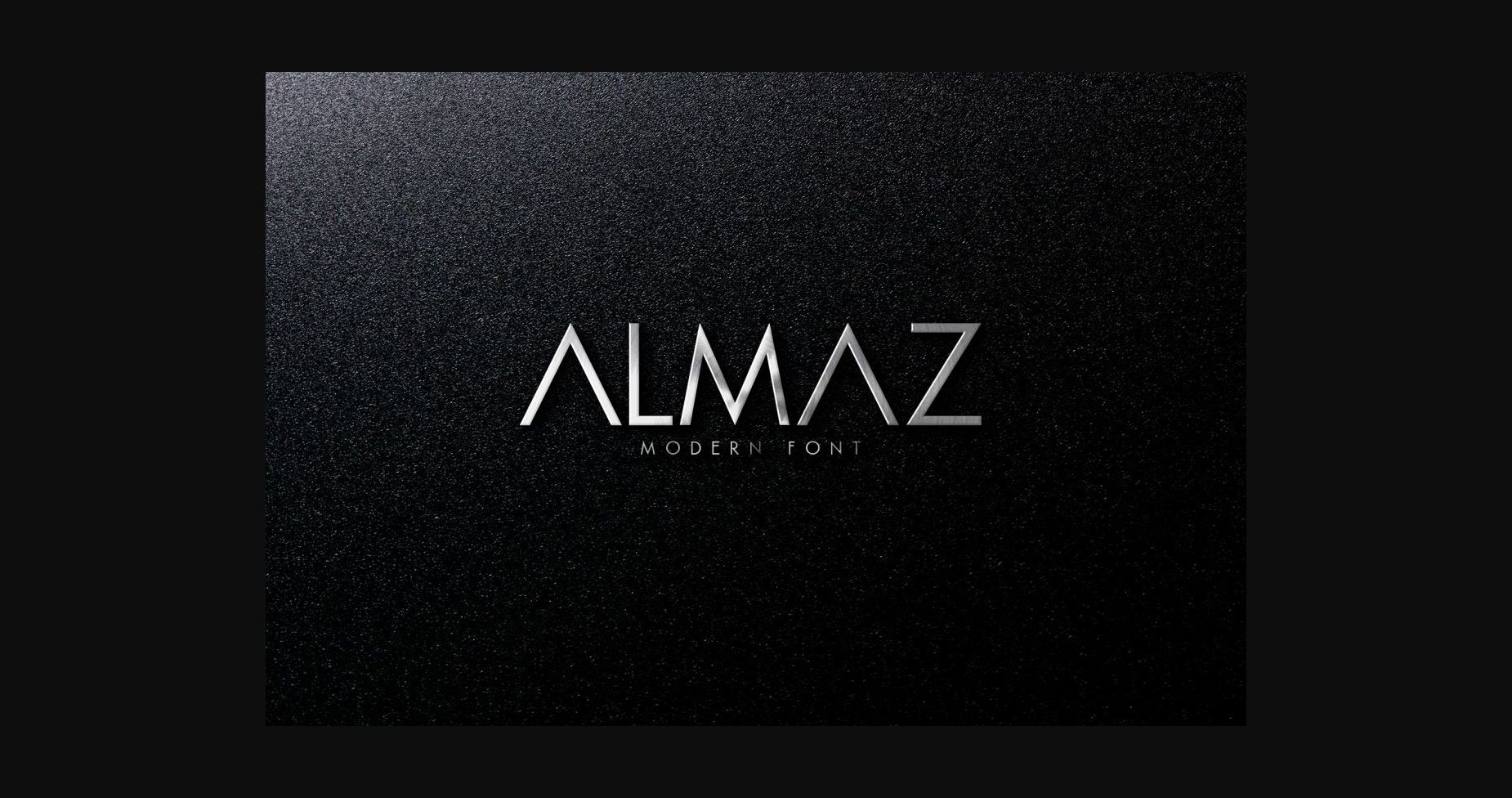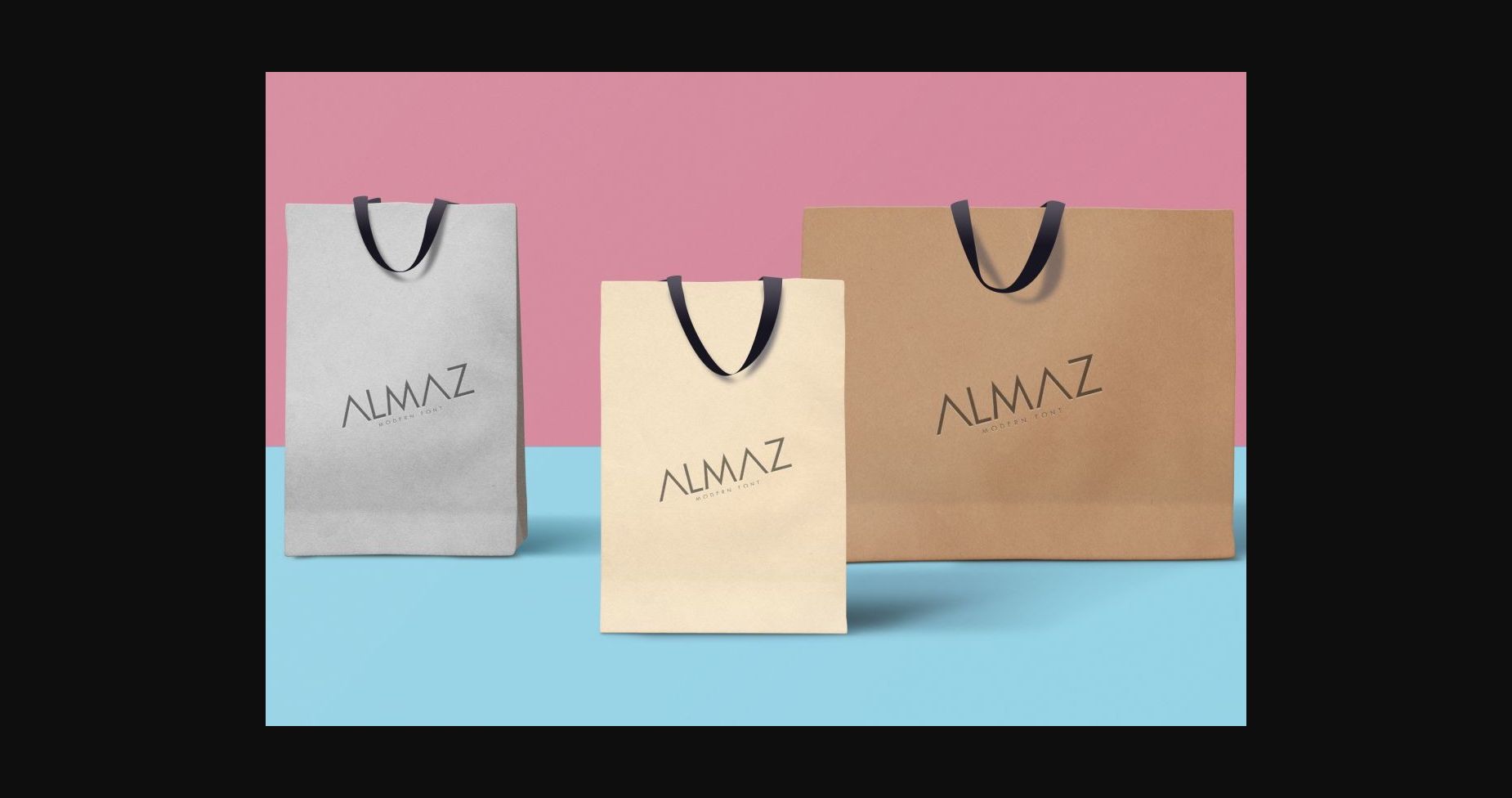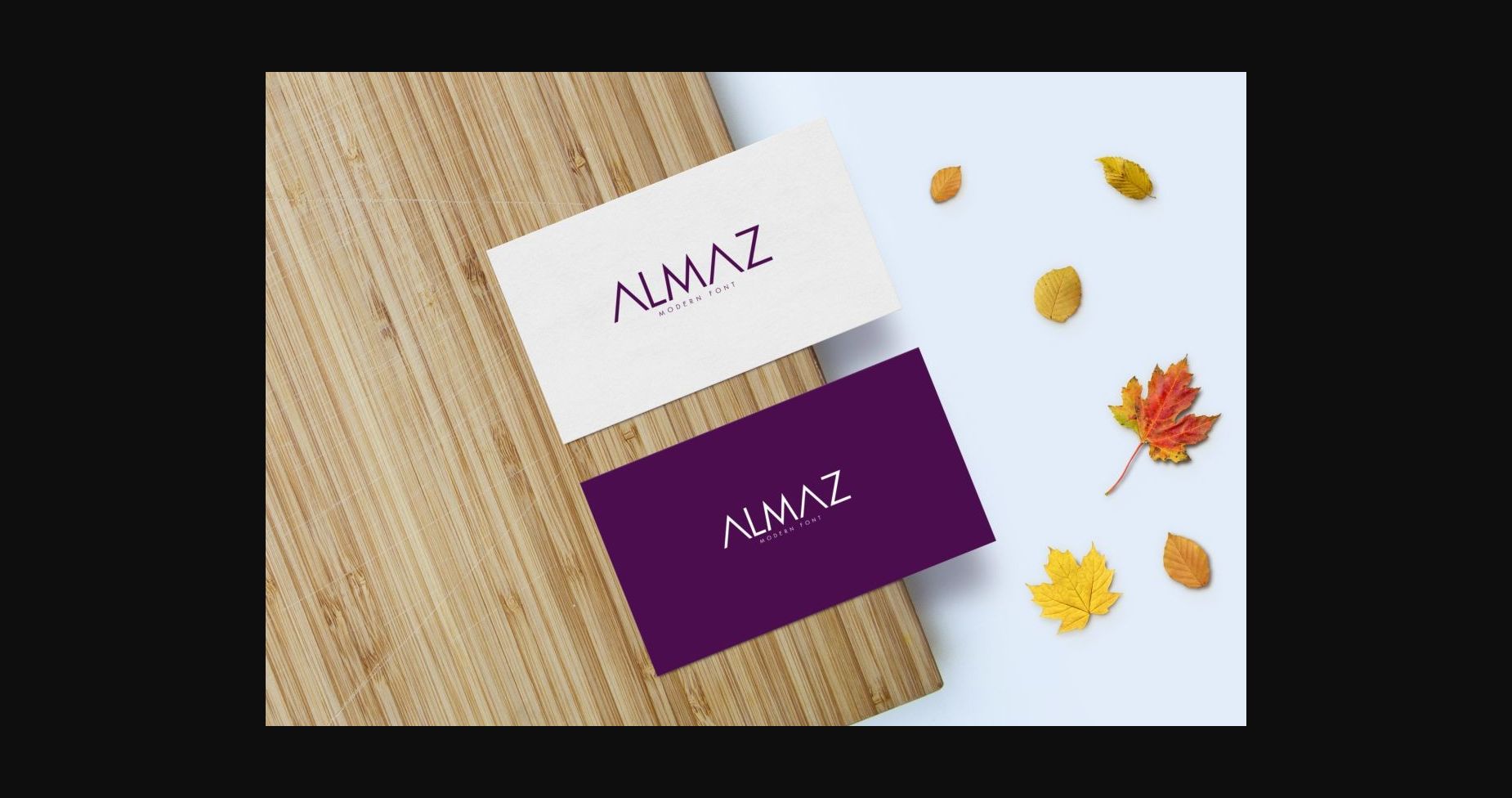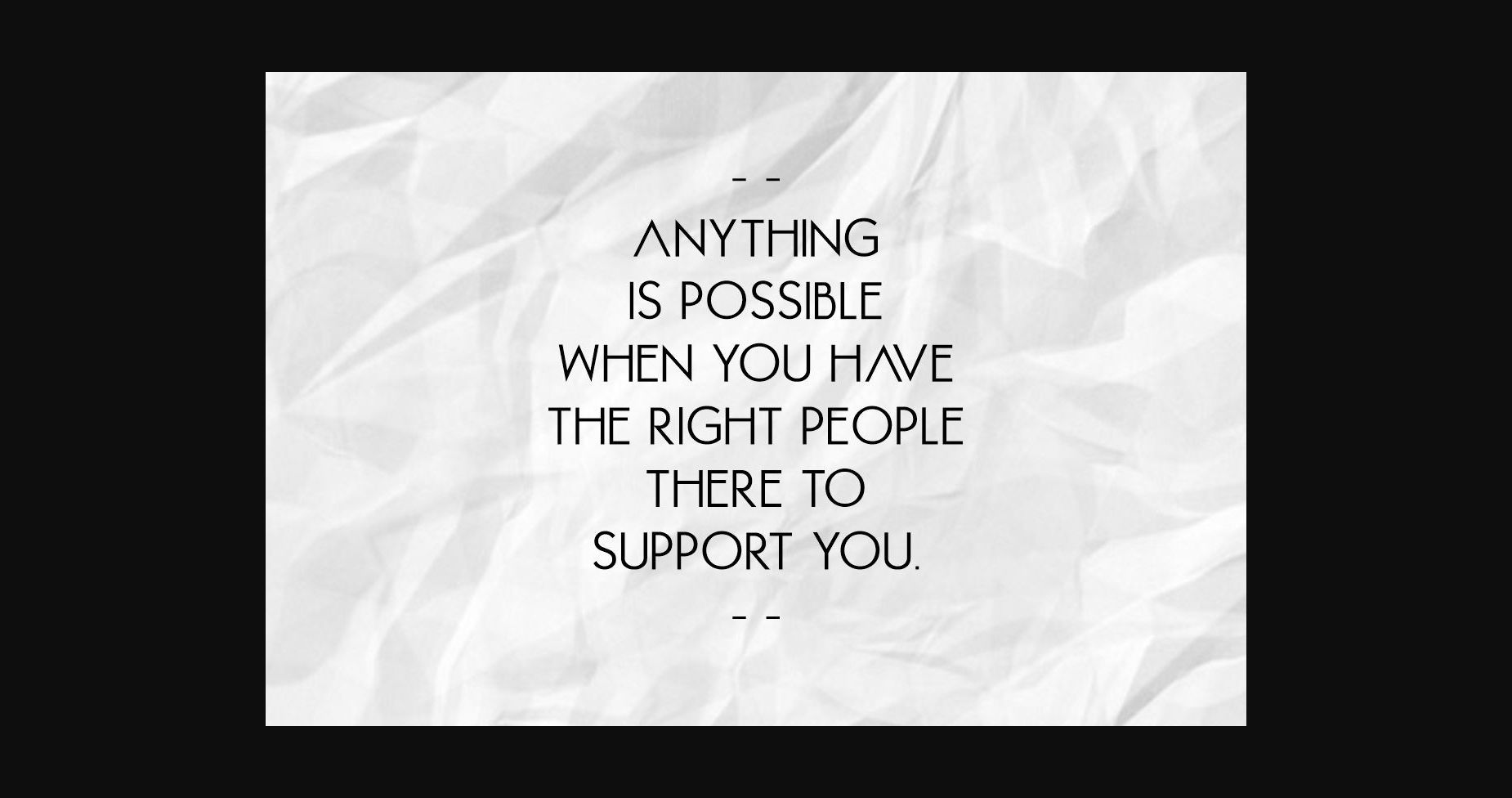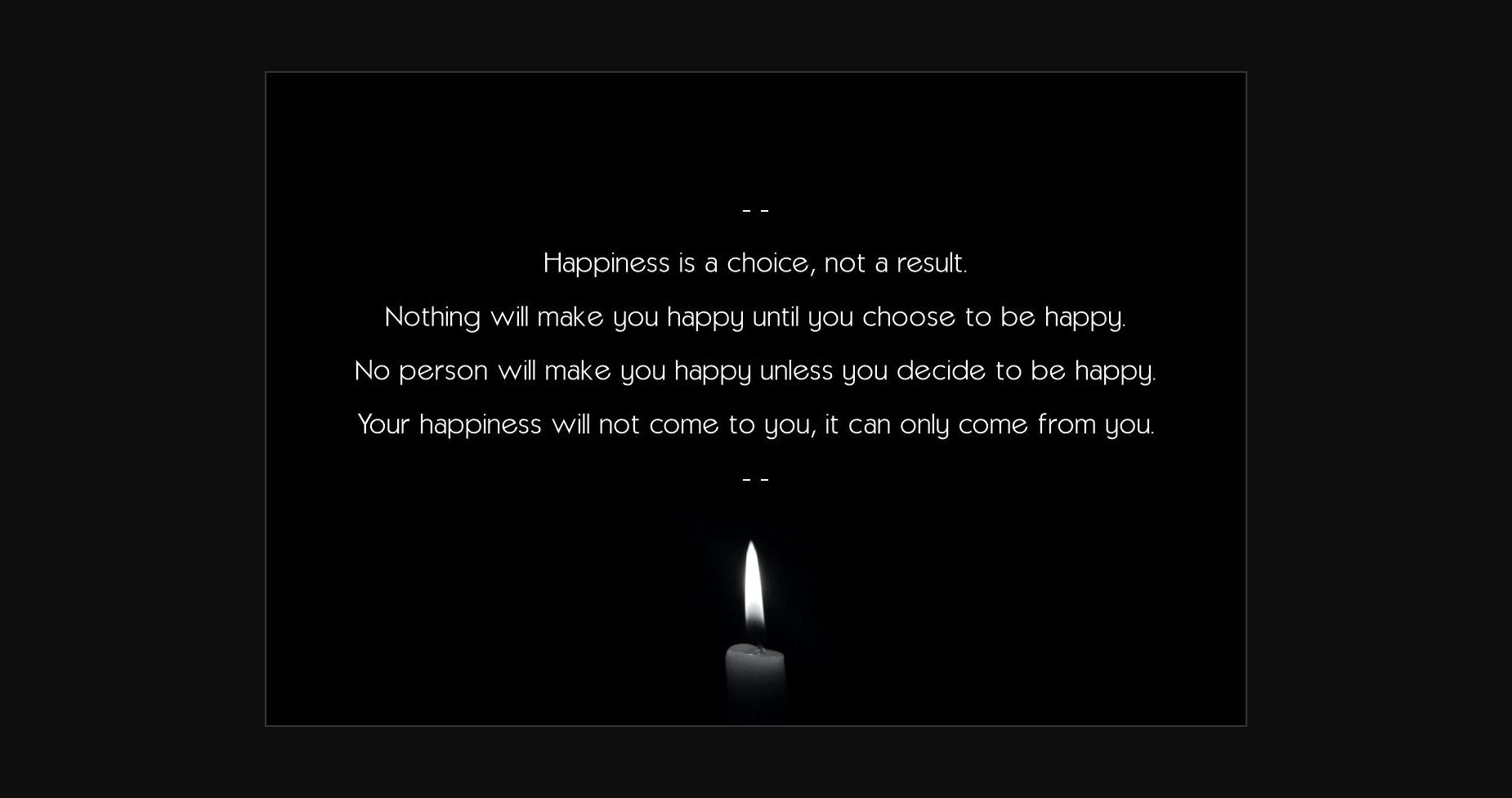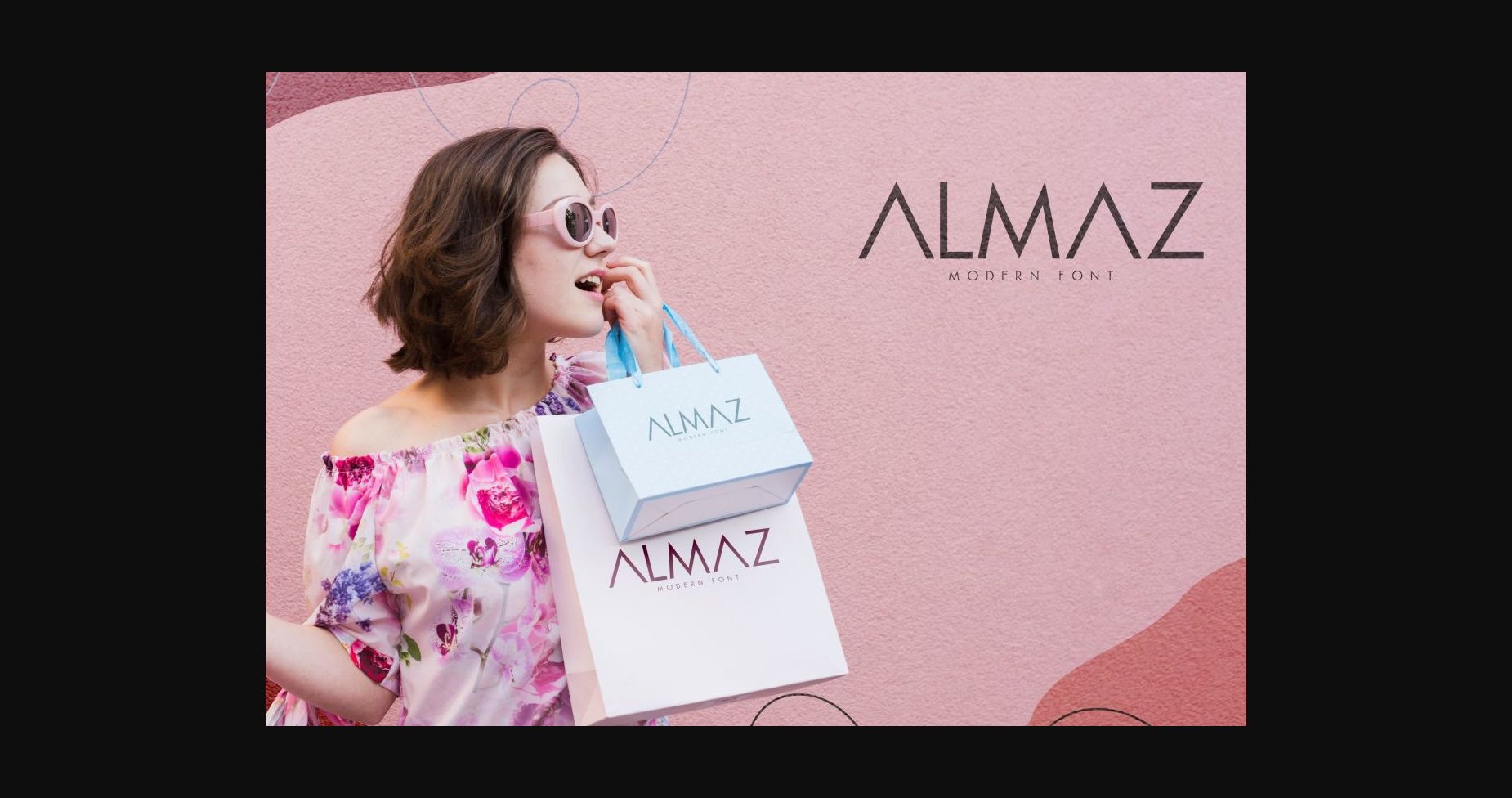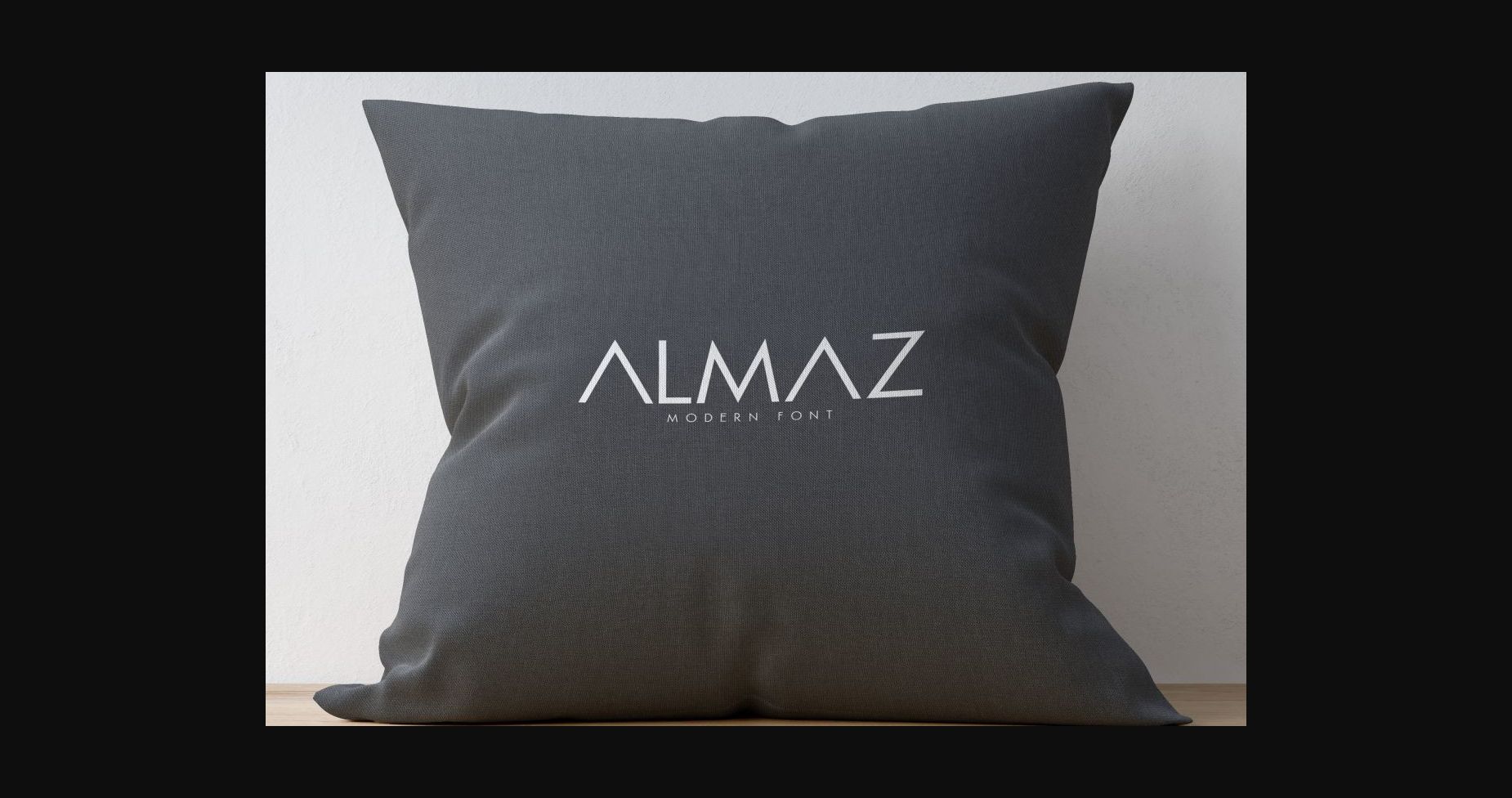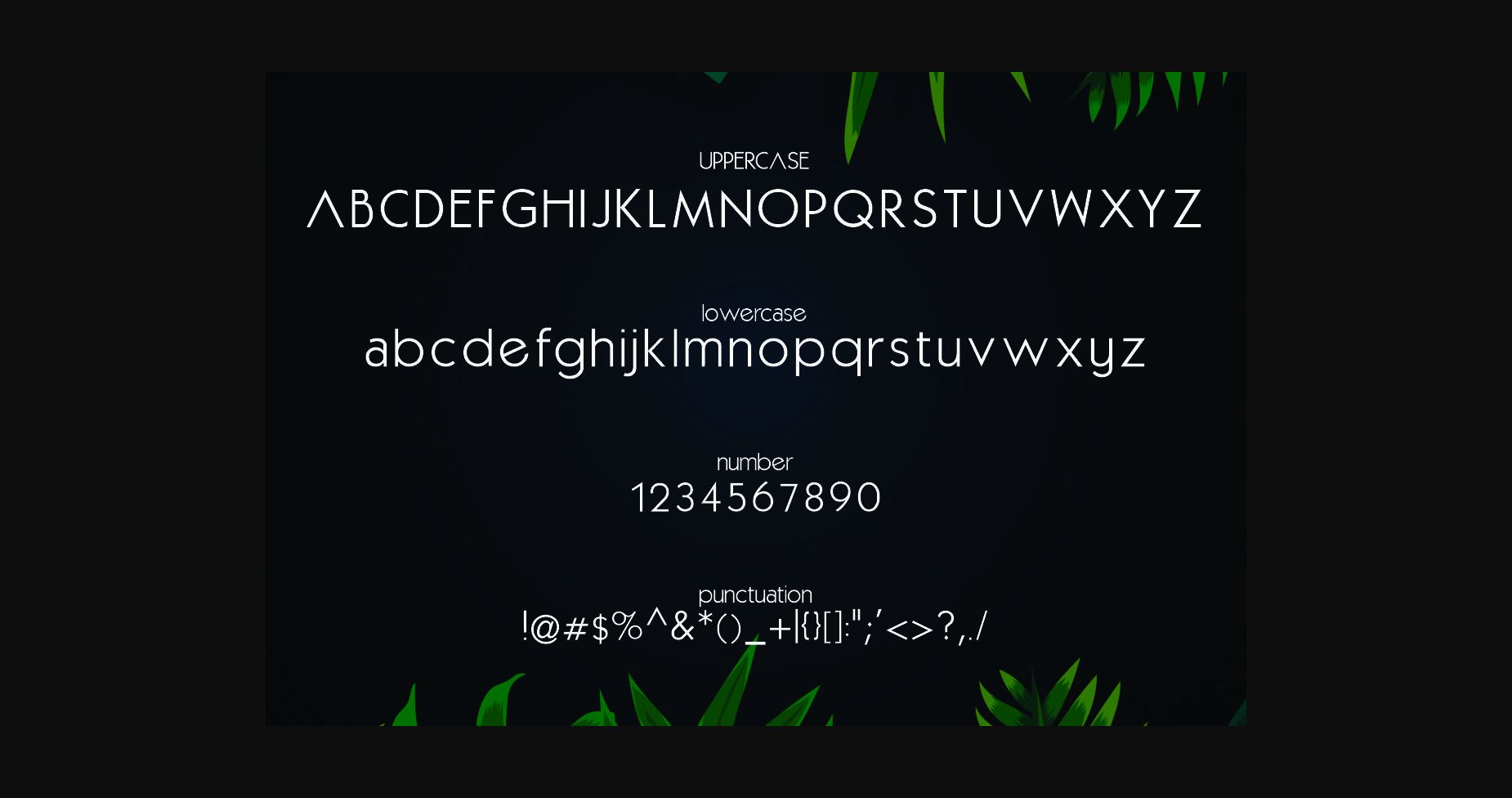
Almaz Font
About Almaz Font
Almaz is a clean and thin lettered sans serif font. It can easily be matched to an incredibly large set of projects, so add it to your creative ideas and notice how it makes them stand out!